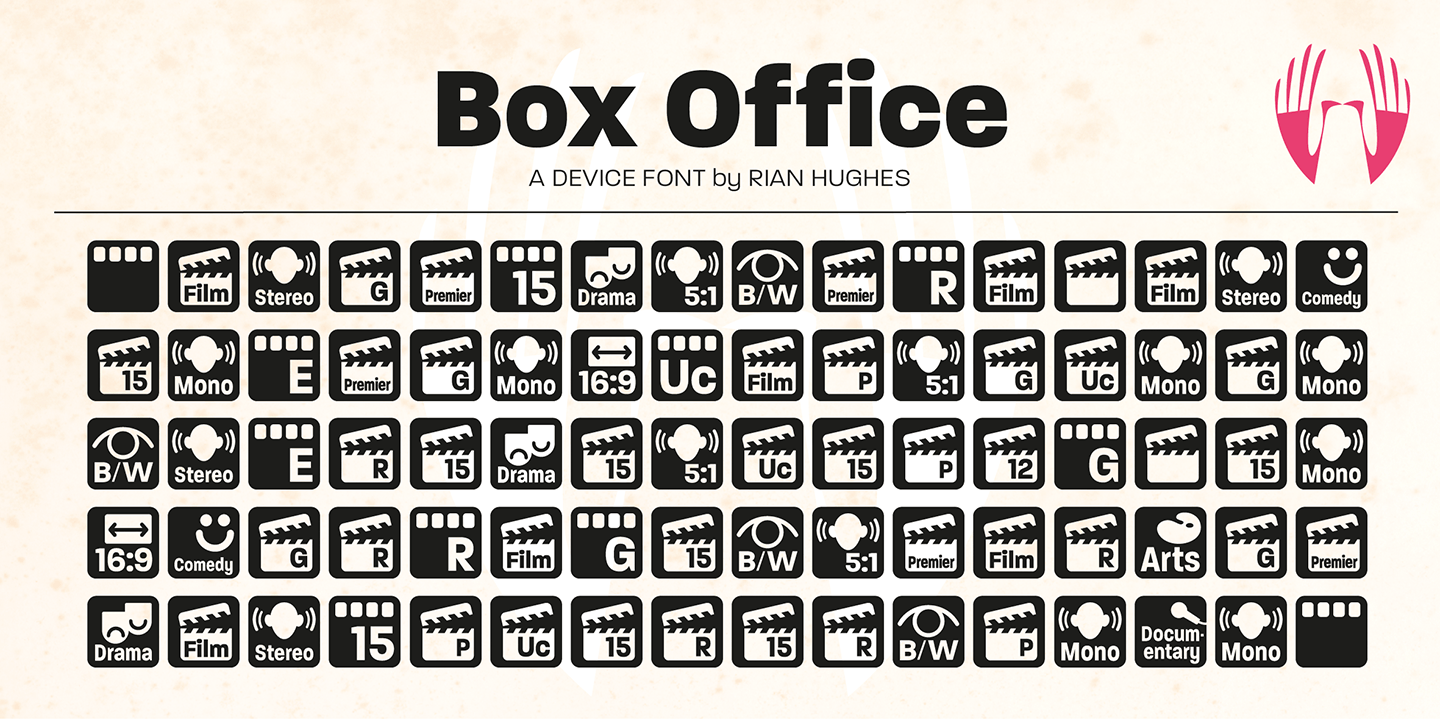
Box Office
Font Family by Device
Designed originally for the BBC's listings magazine ?Radio Times?, this dingbat font has been extended to include the US rating as well as the UK ones and a selection of symbols for use on DVD film packaging and satellite listings.
The font used is Paralucent, and an ideal accompaniment. Note: the icon for sexual content comes in two versions, one with genitalia and one without.